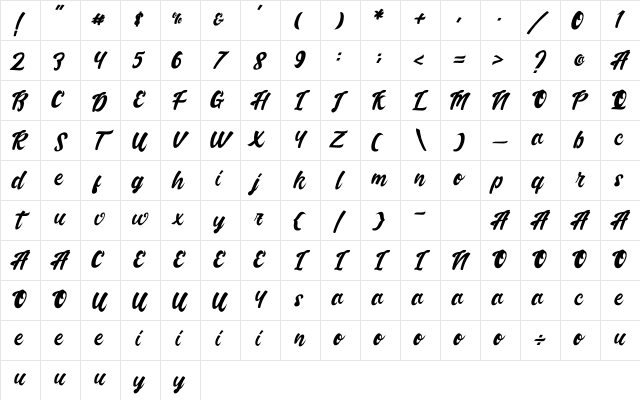
Complete Handletterink Regular glyph index. Displaying only characters natively supported by Handletterink Regular font.
Handletterink flows with the natural rhythm of handwritten lettering, making it ideal for designs that call for warmth and personal expression.
Font Pairing: Combine Handletterink with a simple geometric sans for maximum contrast - the tension between flowing curves and clean structure is a classic typographic pairing.
Pro Tip: Use Handletterink for short runs of text - names, titles, or taglines. Extended body copy in script faces tires the eye quickly.